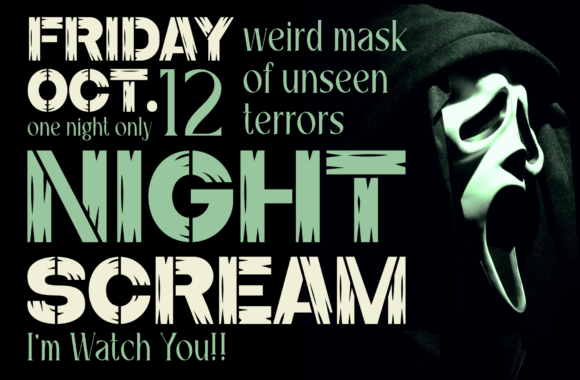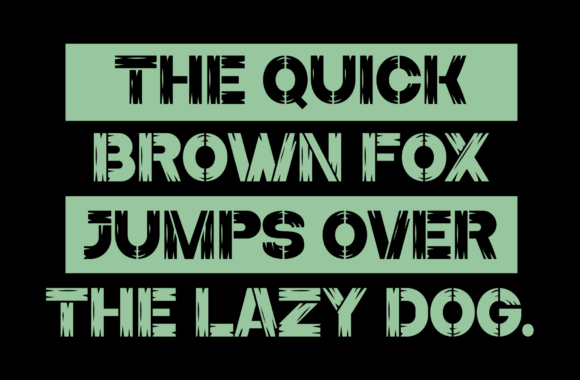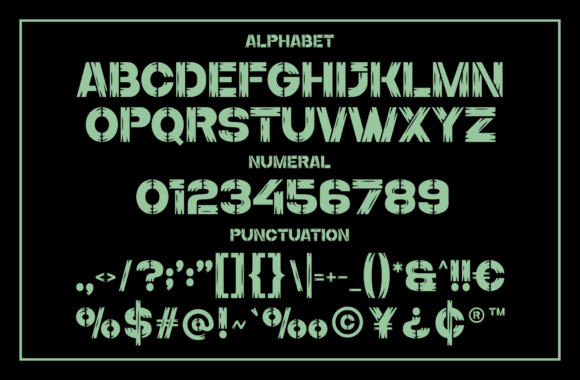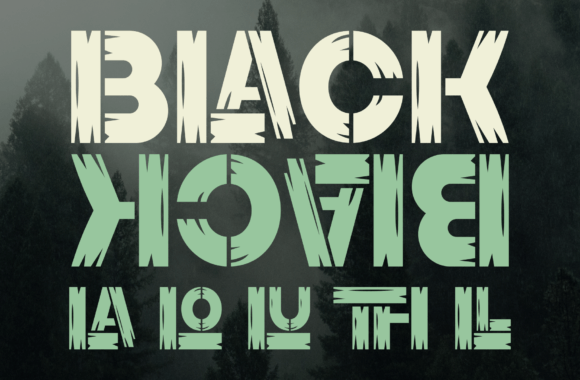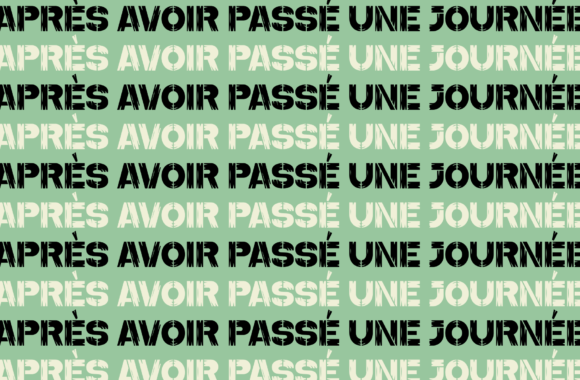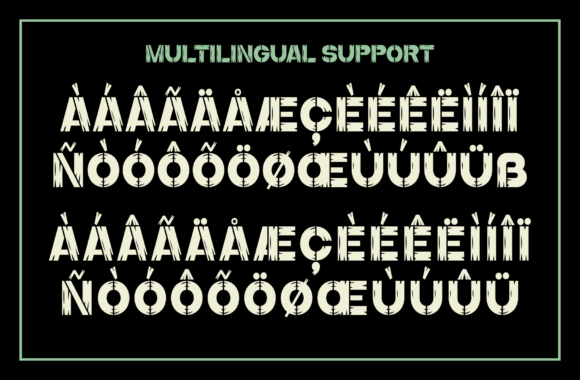
The Deland Font: A Timeless Classic for Your Creative Projects
I still remember the design struggle I faced while working on a vintage-themed craft project. I was searching for the perfect font to give my design a nostalgic feel, but nothing seemed quite right. That’s when I stumbled upon the Deland font, a beautiful classic decorative stencil font that instantly elevated my project. If you’re a designer, crafter, or creative hobbyist looking for a font that exudes a touch of elegance and sophistication, you’re in the right place!
A Personal Review of Deland Font
As a designer, I’m always on the lookout for fonts that can add a unique touch to my projects. Here’s my honest review of the Deland font:
- ✨ Elegant and sophisticated design: Deland font has a timeless quality that makes it perfect for projects that require a touch of class.
- ✅ Highly versatile: This font can be used for a wide range of projects, from crafting and DIY tutorials to branding and advertising.
- 💫 Easy to read: Despite its decorative nature, the Deland font is surprisingly easy to read, making it perfect for body text and headings.
- 🤔 Limited use in small sizes: While the Deland font is stunning in larger sizes, it may not be the best choice for very small text or captions.
- ⚠️ No built-in italic or oblique versions: If you need an italic or oblique version of the font, you may need to rely on faux styles or alternative fonts.
- Experiment with OpenType features, such as Stylistic Alternates and Glyphs, to add more flair to your text.
The Story Behind Deland Font
The Deland font was inspired by traditional stencil designs used in art and design. Its creator aimed to craft a font that would evoke a sense of nostalgia and timelessness, while still being highly legible and versatile. The result is a beautiful, elegant font that’s perfect for a wide range of creative projects.
| Font Name | Deland Font |
| Author | Marvadesign |
| What is the Deland font best used for? | The Deland font is perfect for projects that require a touch of elegance and sophistication, such as crafting, DIY tutorials, branding, and advertising. |
| Is the Deland font suitable for body text? | While the Deland font is decorative, it’s surprisingly easy to read, making it suitable for body text in larger sizes. |
| What are some common design applications for the Deland font? | The Deland font can be used in a wide range of design applications, including graphic design, branding, advertising, crafting, and DIY tutorials. |